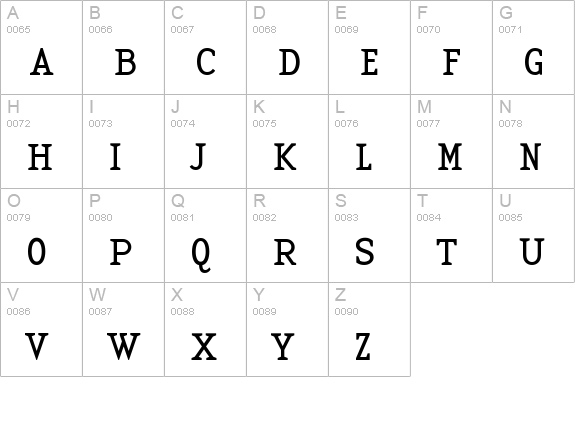
BaseTwelveSerif font is a classic and elegant typeface that exudes sophistication and refinement. With its clean lines and timeless serifs, this font is perfect for adding a touch of professionalism to any design project. Its versatility makes it suitable for a wide range of applications, from branding and advertising to editorial and web design. What sets BaseTwelveSerif font apart is its unique design that combines traditional serif elements with a modern twist. The balance of thick and thin strokes creates a harmonious look that is both eye-catching and easy to read. Whether used for body text or headlines, this font is sure to make a statement and elevate your designs to the next level. The best part is that BaseTwelveSerif font is available for free at FontsMarket.com. Simply download it and start using it in your projects right away. Don't miss out on this opportunity to enhance your designs with this stunning typeface.